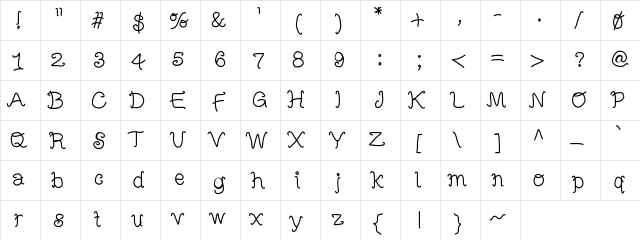
MBFunScript Medium Free Font
MBFunScript Medium
Design Context for MBFunScript
MBFunScript has an approachable, lighthearted character - its loose, expressive forms are well-suited to children's content, casual branding, and fun-first design.
Font Pairing: Pairs well with a rounded or humanist sans for body copy, maintaining the friendly tone without relying on MBFunScript to carry extended reading.
Pro Tip: Use MBFunScript at larger display sizes where its expressive character can land. Pair with a clean, simple sans for body copy to maintain readability.